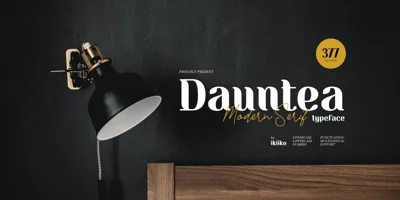
Dauntea Font
Dauntea Font – Elegant Serif with Whispered Romanticism
Dance between strength and delicacy with Dauntea Font, a contemporary serif that pairs structural precision with flowing organic details. Perfect for luxury branding, editorial excellence, and designs demanding poetic typography.
Why Dauntea Enchants
Dual-Nature Letterforms – Confident stems with delicate terminals
5 Weight Gradient – From whisper-thin to assertive bold
Perfect Optical Balance – Gorgeous at both display and text sizes
1,200+ Glyphs – Including 300+ contextual alternates
OpenType Poetry – Automatic stylistic substitutions
True Small Caps – Harmonious proportions
Micro-Adjusted Kerning – 1,800+ precision refinements
Experience its lyrical quality in your:
High-end brand identities
Literary magazine layouts
Wedding stationery concepts
Personal typographic studies
Where Dauntea Blooms
1. Luxury Branding
Perfume bottle engraving
Jewelry brand typography
Five-star hotel collateral
2. Publishing Excellence
Poetry collection interiors
Thought-leadership articles
Premium non-fiction titles
3. Cultural Institutions
Theater program elegance
Museum exhibition graphics
Classical concert materials
4. Digital Sophistication
Editorial website headers
High-end e-commerce
Lifestyle app interfaces
Design Tip: Alternate between weights mid-word for poetic rhythm!
Note: Each weight includes unique terminal designs for added character depth.